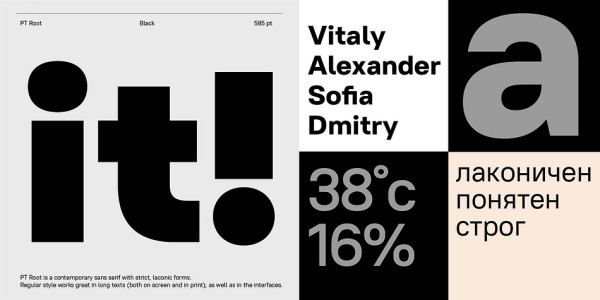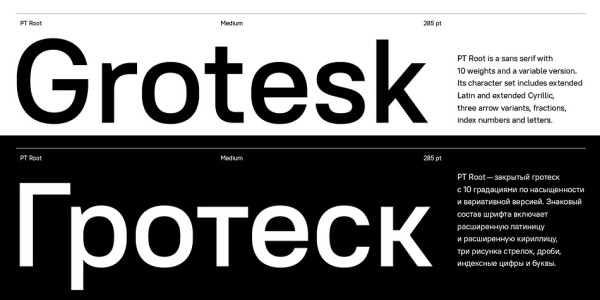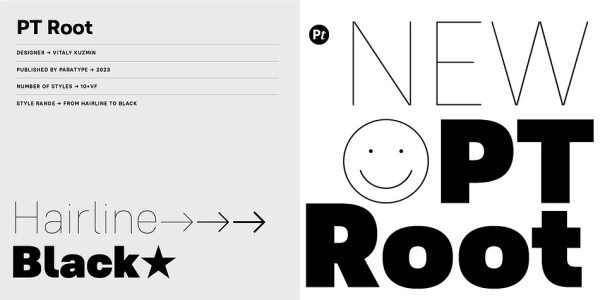
PT Root Font
PT Root Font is a contemporary sans serif with strict, laconic forms.It’s a versatile typeface that provides a wide range of possibilities. Regular style works great in long texts (both on screen and in print), as well as in the interfaces. Medium and Demibold are good for signage, while the lightest and boldest styles look great in large sizes and are suitable for the brand identity.
PT Root is a sans serif with 10 weights and a variable version. Its character set includes extended Latin and extended Cyrillic, three arrow variants, fractions, index numbers and letters.
PT Root automatically lifts dashes and brackets with the case change. Its characters have stylistic variants, including the single-storey a, a strikethrough zero and some local alternates for Bulgarian and Serbian Cyrillic.
PT Root can work in a project both independently and in pairs. Contemporary serif typefaces are the best text companions for it — try for example PT Serif, Yefimov Serif or Scientia. In case PT Root is the only text typeface in the project, then combine it with serious typefaces, such us technical (Din Condensed as an example) or pronouncedly contemporary typefaces, including postmodern ones, from Stapel or Spile to Helsa.